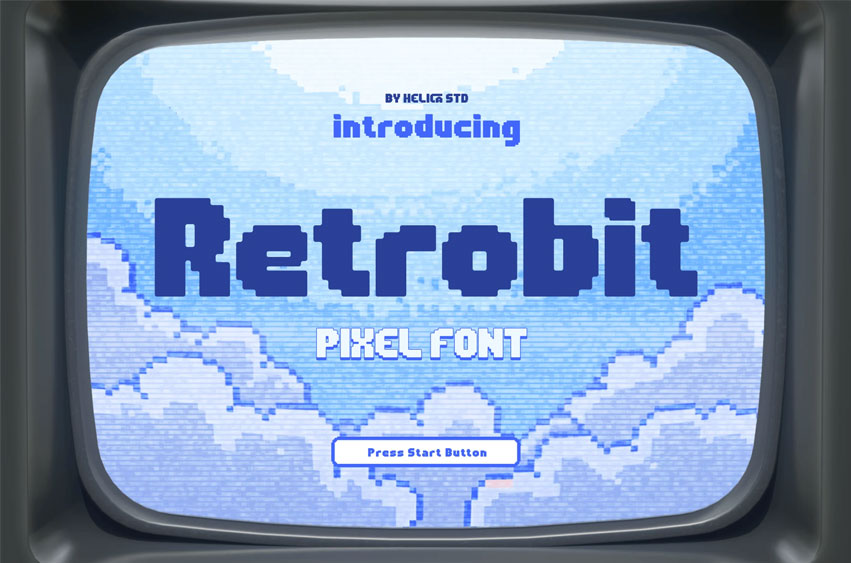
Retrobit Font
Retrobit Font Pixel Display Font is a nostalgic pixel font crafted for lovers of classic 8-bit aesthetics. With bold pixel-perfect characters and playful charm, Retrobit evokes the retro gaming era, making it ideal for modern design projects that demand a vintage digital feel. It’s crisp, fun, and ready to press start on your creative journey.